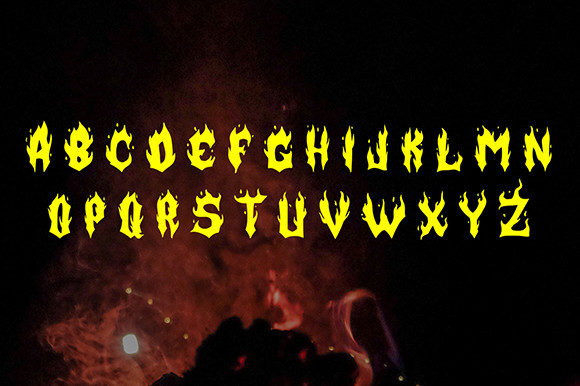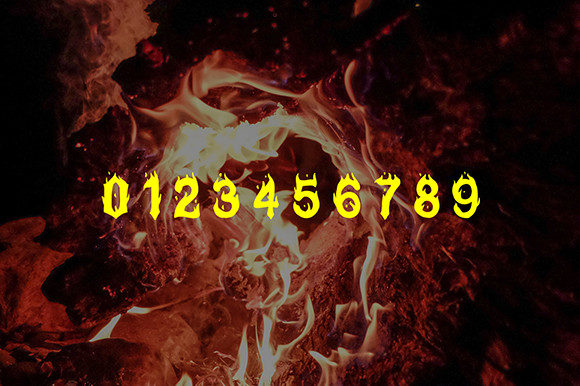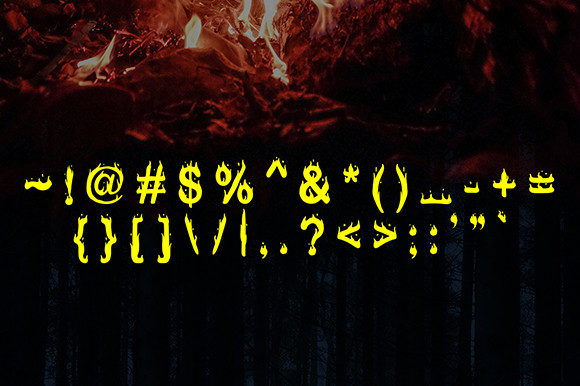
Hellbone Font
Hellbone is a scary and dark looking decorative font. Use it for each of the designs that could benefit from a creepy and original vibe.